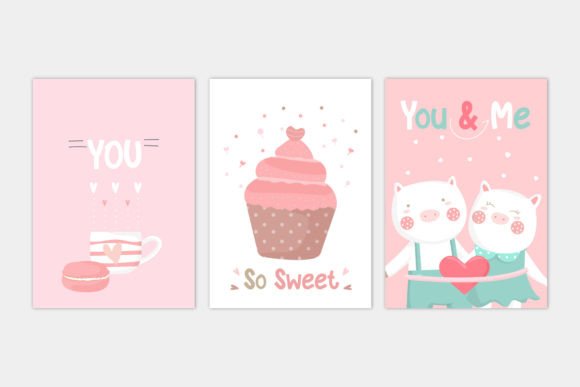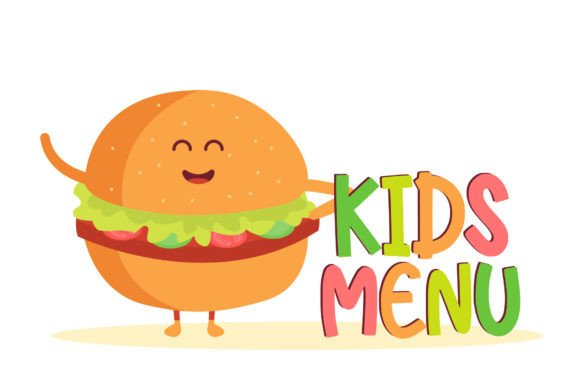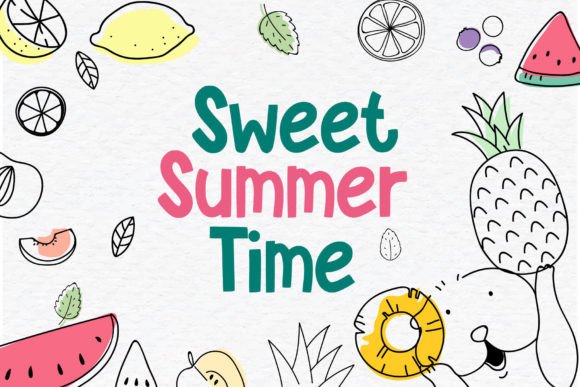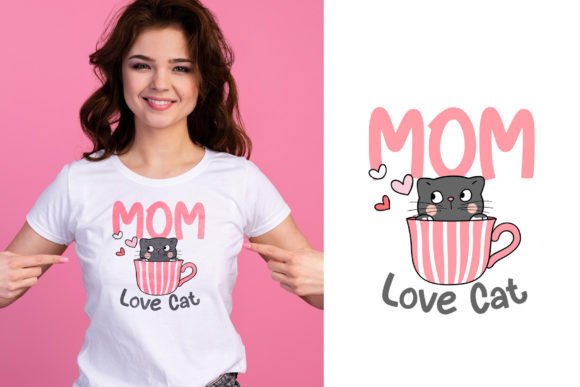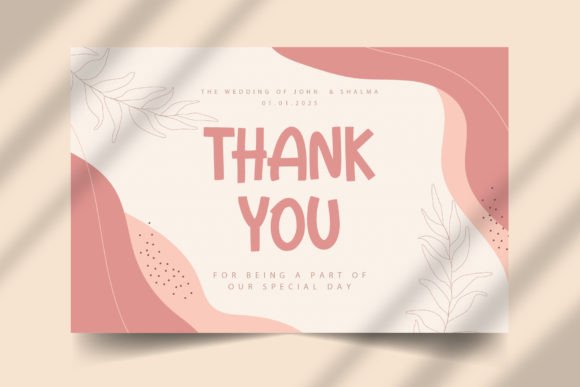
The Perfect Blend of Whimsy and Charm: Cute Riley Font
Remember the moment when you finally nailed the perfect illustration for your child’s birthday card or created a blog post that captured the hearts of your readers? That’s the magic of design. And what makes it even more special is the right font that brings it all together. For those who love to craft unique and engaging content, we’re excited to introduce the Cute Riley Font, a delightful, handwritten font that’s sure to add a touch of warmth and personality to your creations.
This charming font is designed to be versatile, making it perfect for a wide range of projects, from children’s projects and blog posts to logos, branding, and invitations. Whether you’re a seasoned designer or just starting out, the Cute Riley Font is an invaluable asset to have in your font library, offering endless possibilities to elevate your designs and make them truly special.
Cute Riley Font Key Features
- Font Style: Casual, Handwritten, Script
- Unique Characteristics: Whimsical, playful, and endearing letterforms; Perfect for creative projects, children’s materials, and branding
- Kerning and Ligatures: Custom-designed kerning and ligatures for a natural, handwritten look
Cute Riley Font Review
As a designer, I’ve had the chance to work with various fonts, and the Cute Riley Font is one of them. Overall, it’s a fun and playful font that can add a touch of whimsy to your designs. Here’s my honest review:
- Cute Riley is perfect for creating a child-friendly or family-oriented brand identity.
- The font has a unique, hand-drawn feel that can add character to your designs.
- It’s great for creating engaging headings, titles, and short paragraphs.
- The font may not be suitable for professional or corporate branding due to its playful nature.
- The letterforms can be quite loose and irregular, which may not be ideal for body text.
- The font family is limited, which may not offer as much flexibility as other font families.
Overall, Cute Riley is a fun and quirky font that can add a lot of personality to your designs. While it may not be suitable for every project, it’s definitely worth considering for the right type of design. With its unique feel and playful nature, it’s a great choice for creating engaging and child-friendly content.
Cute Riley Font Practical Application Guide
Tip: Use the Cute Riley Font for creating eye-catching titles and headings in your Canva designs.
Tip: Use the Cute Riley Font for creating custom graphics and illustrations in your Adobe projects.
Tip: Use the Cute Riley Font for creating engaging presentations and documents in your PowerPoint and Word projects.
The Cute Riley Font is ideal for:
- Children’s book illustrations and designs
- Food and beverage branding
- Education and children’s content
Tip: Experiment with different font sizes, colors, and styles to create unique and eye-catching designs.